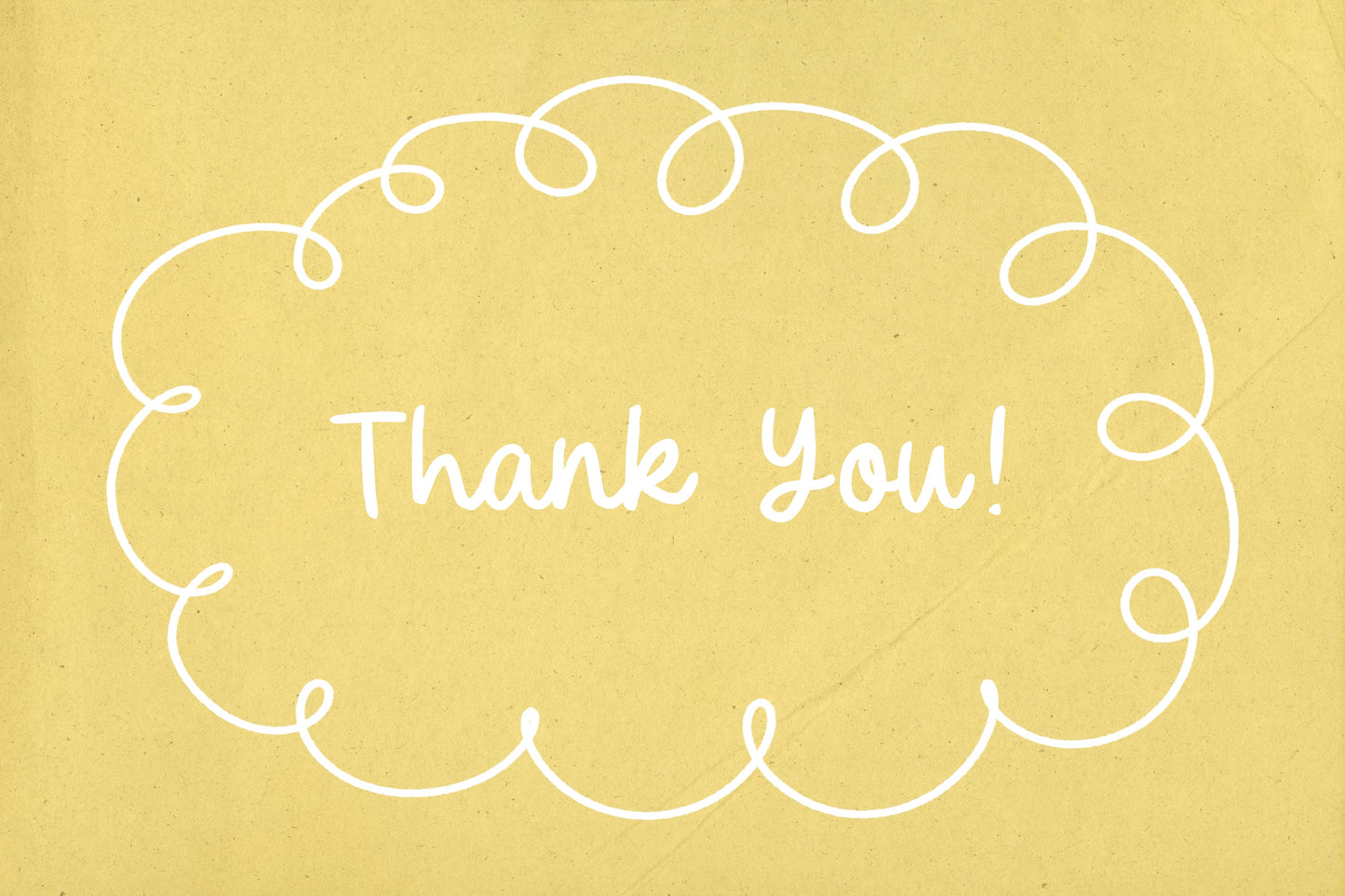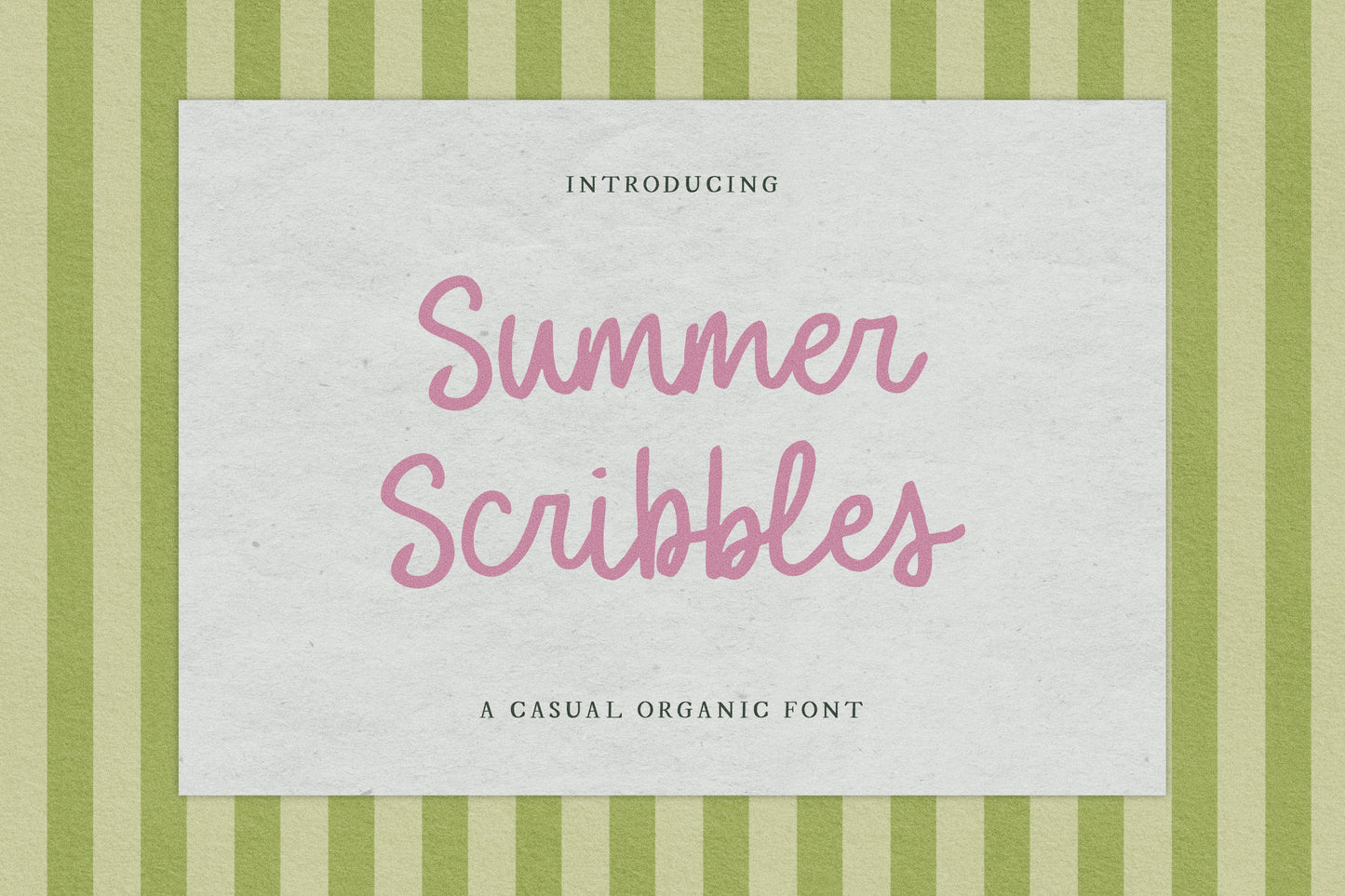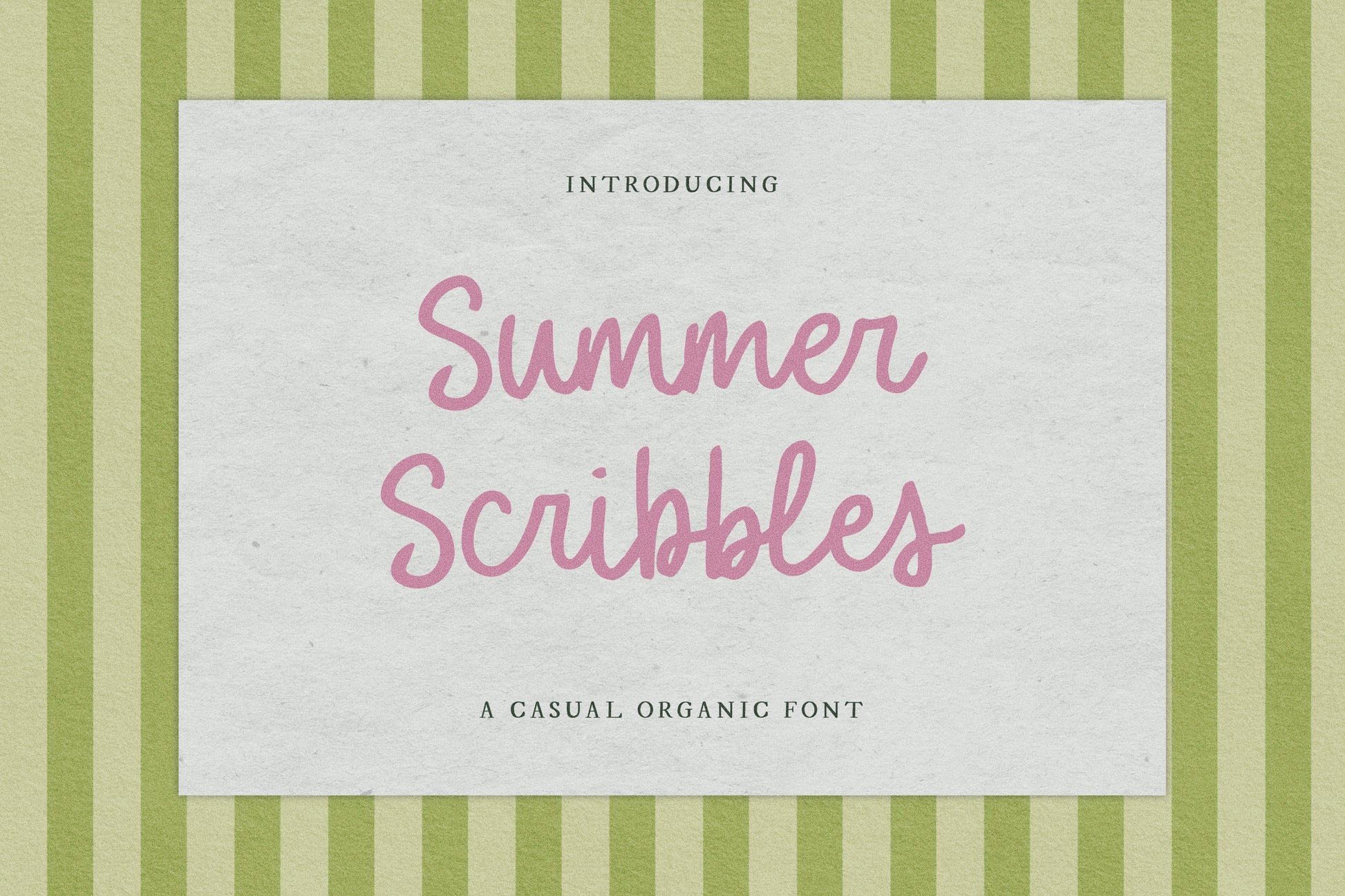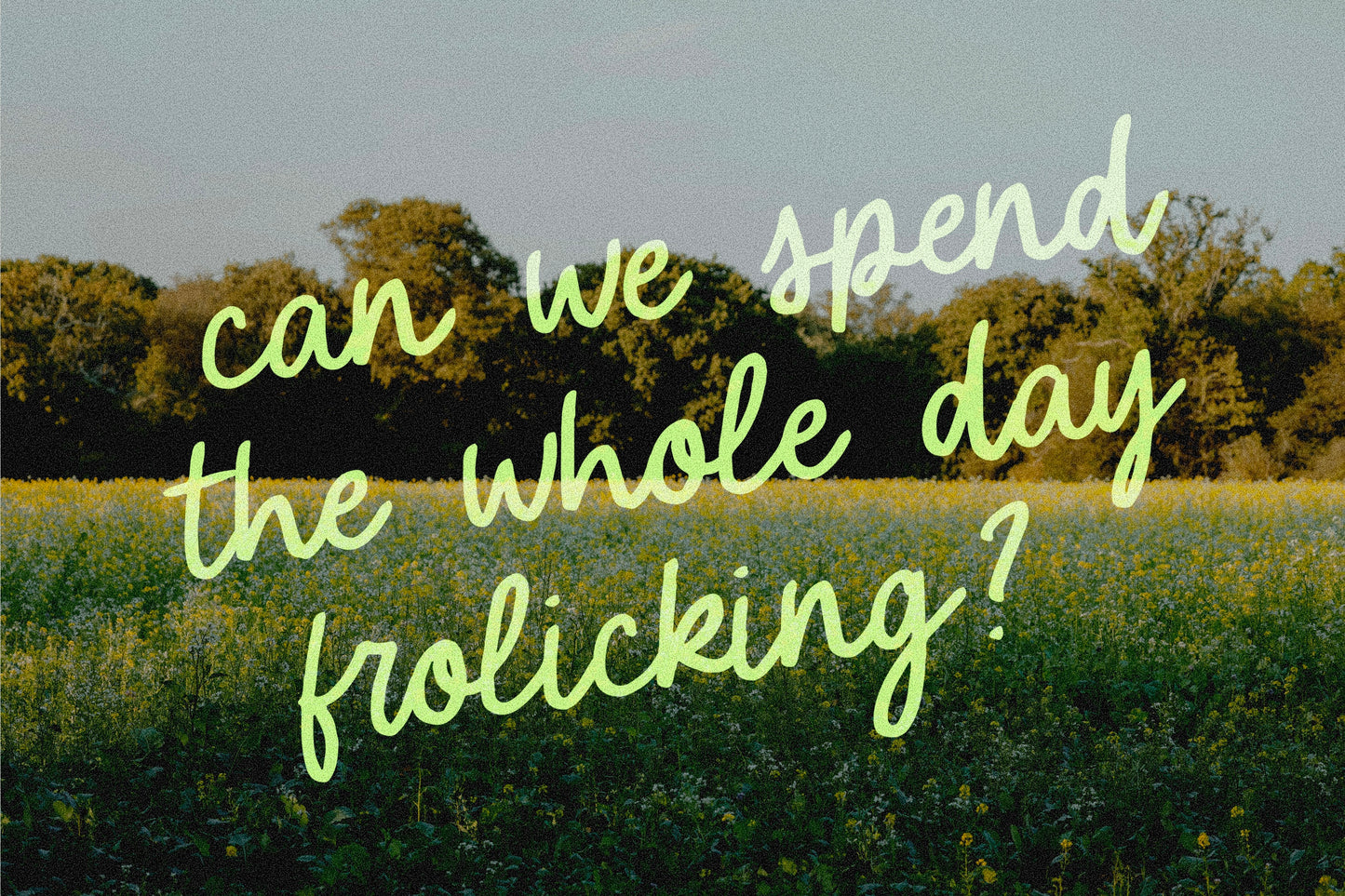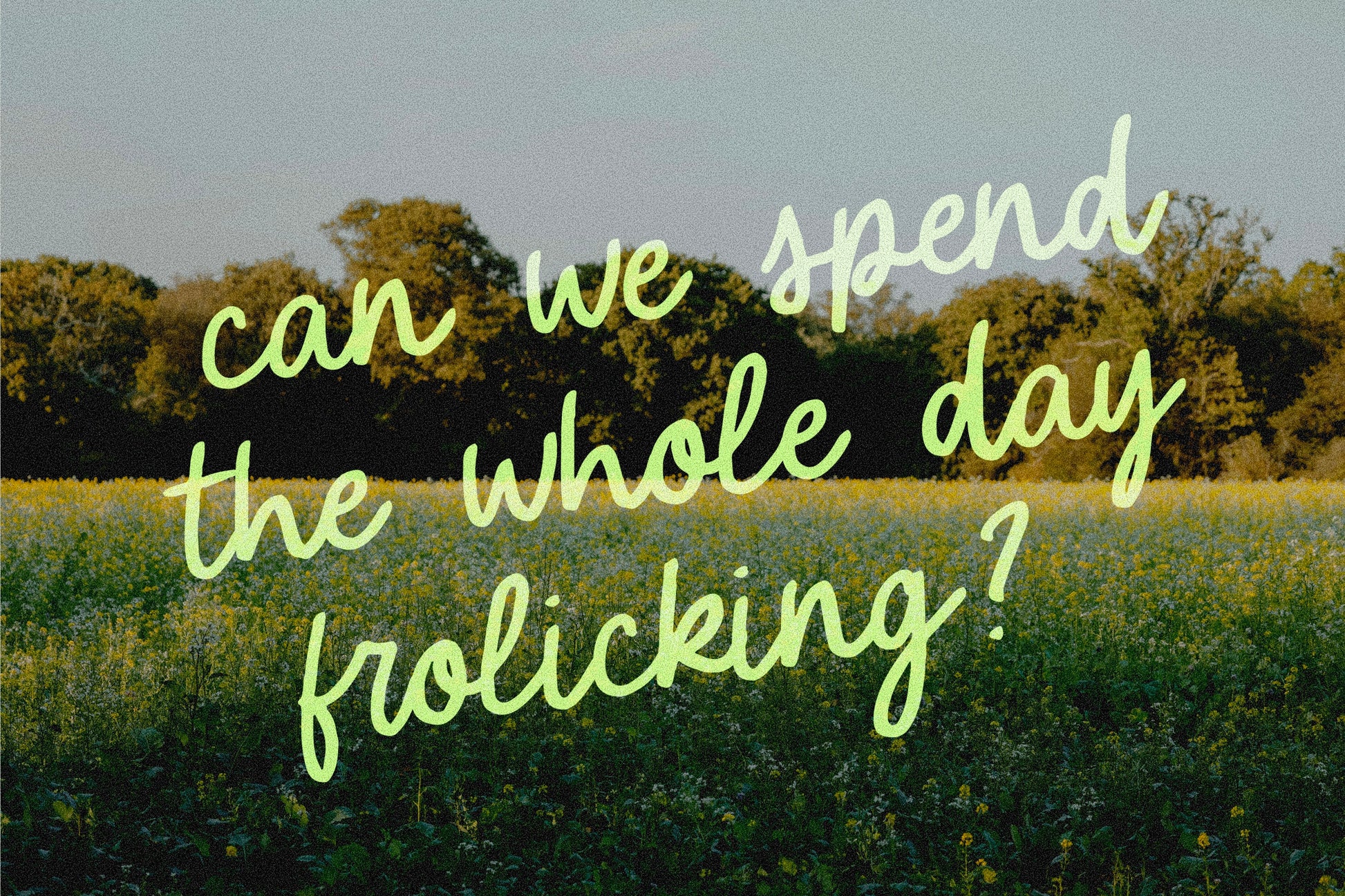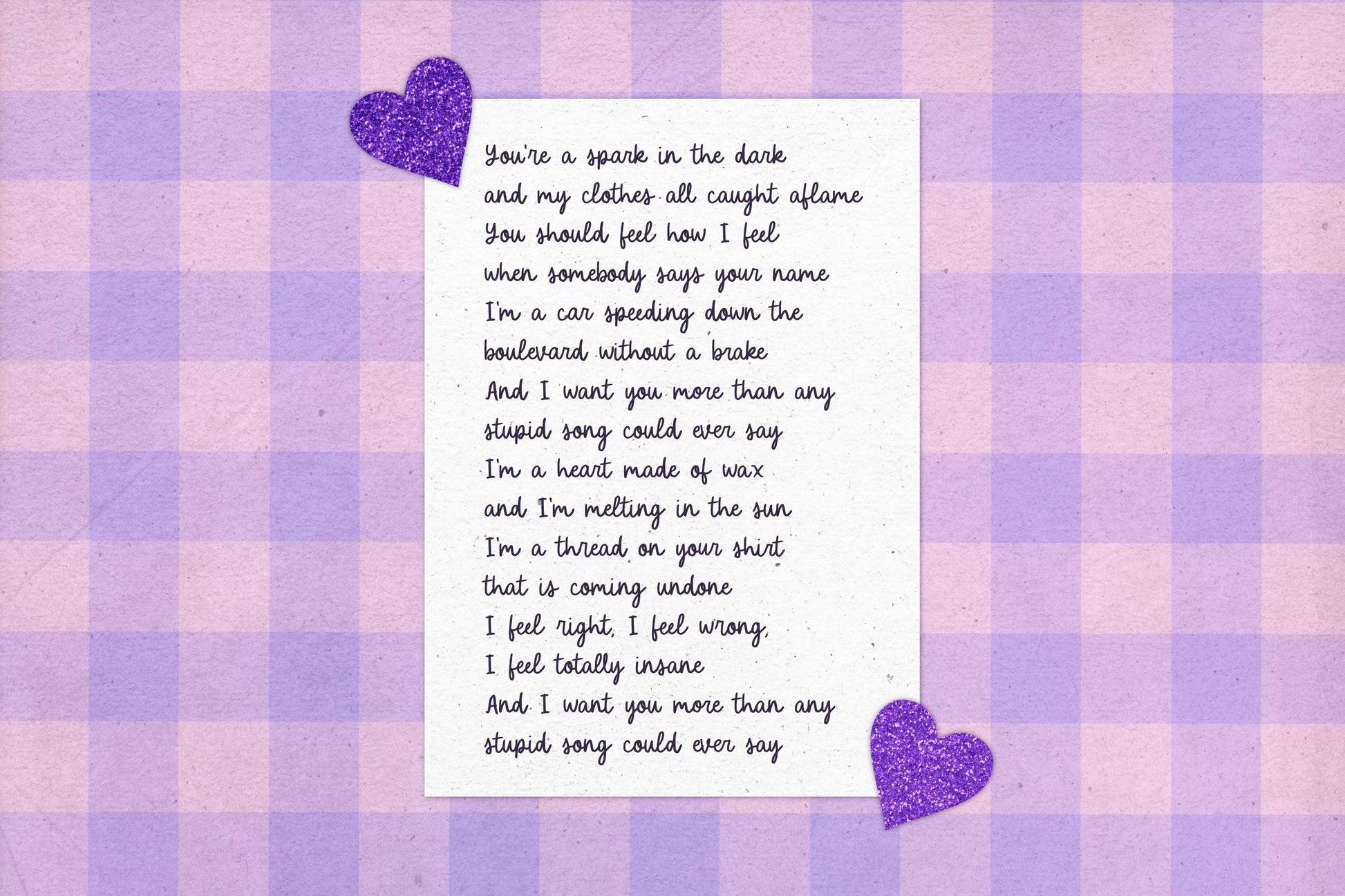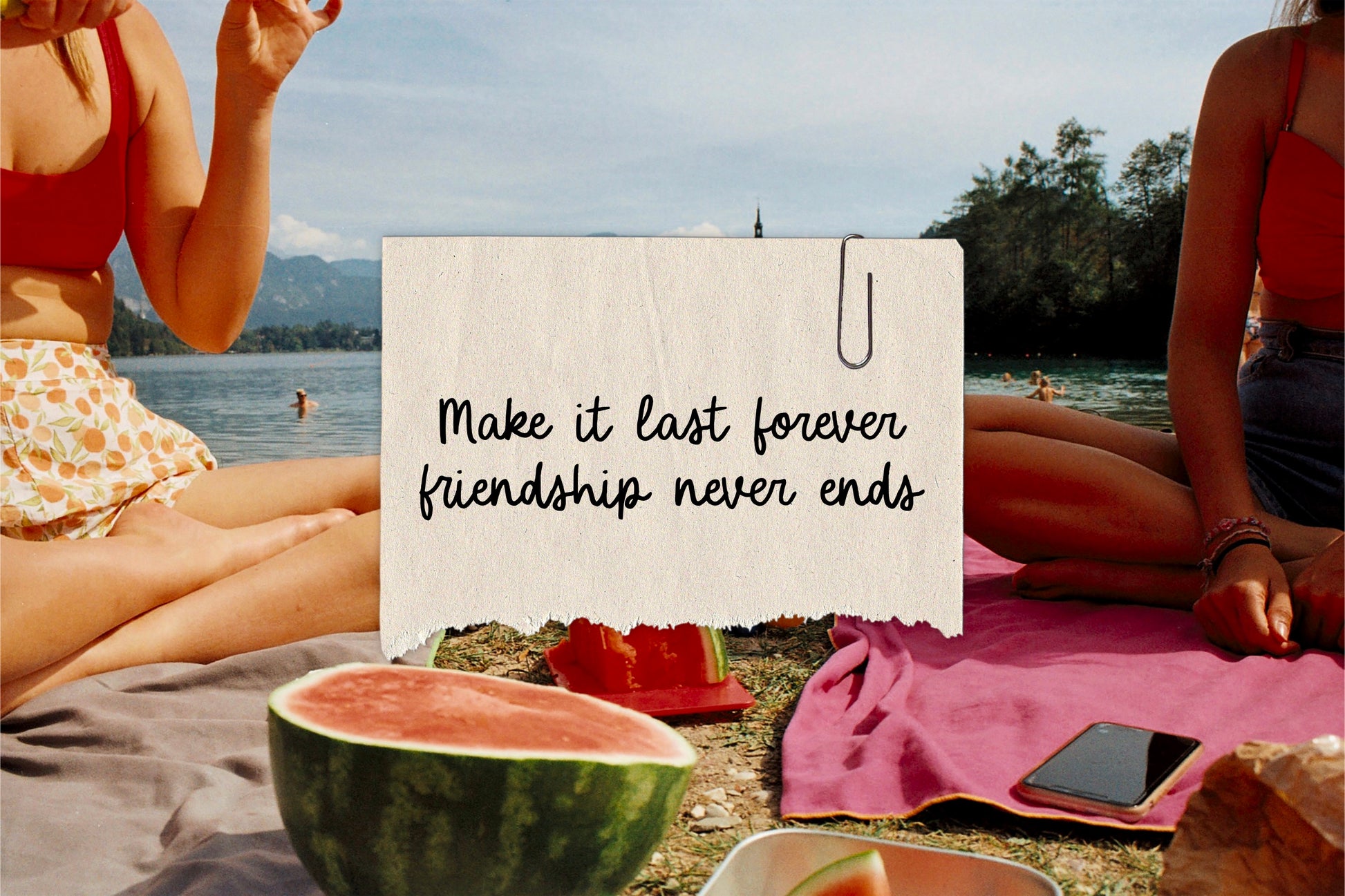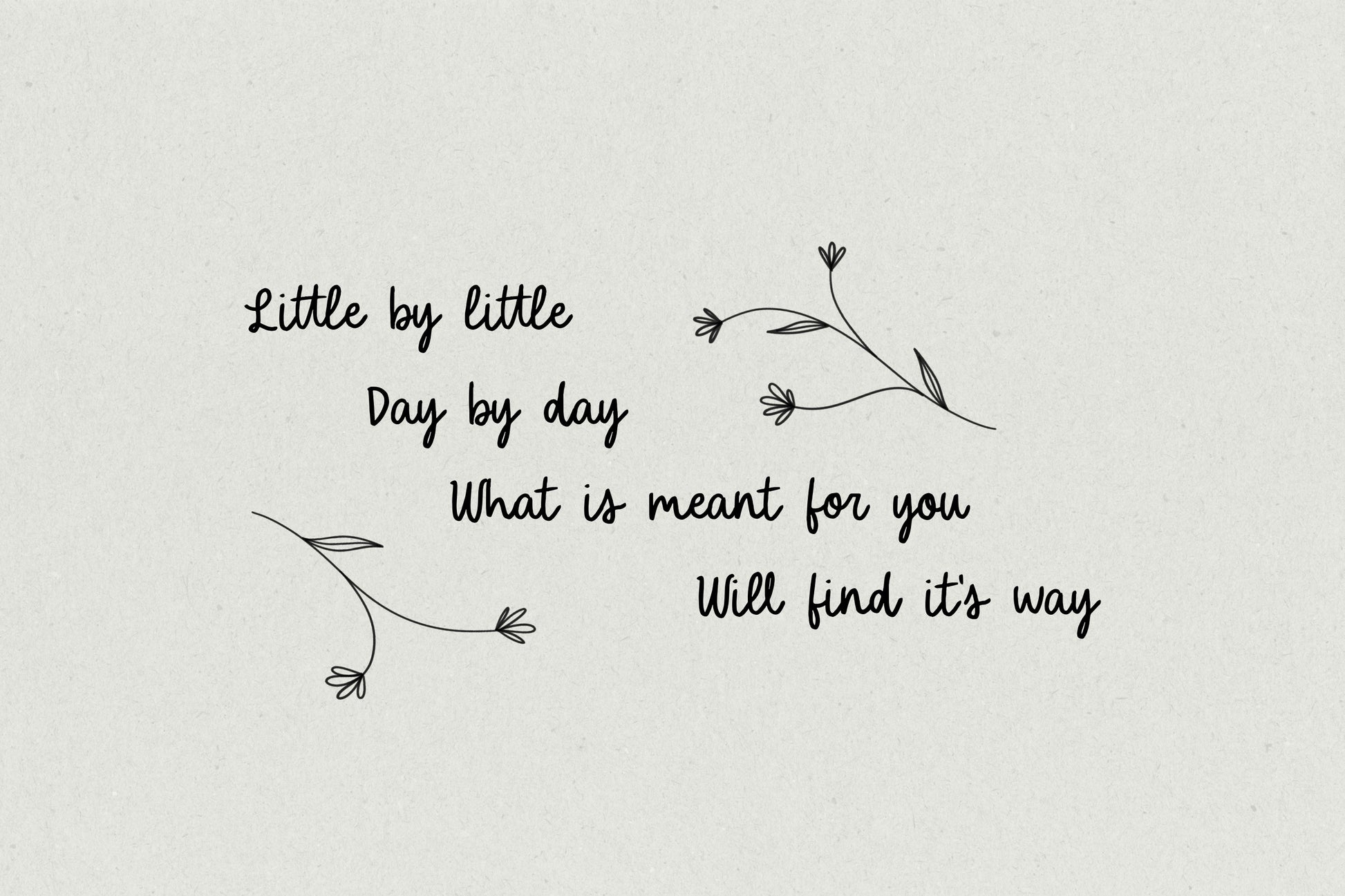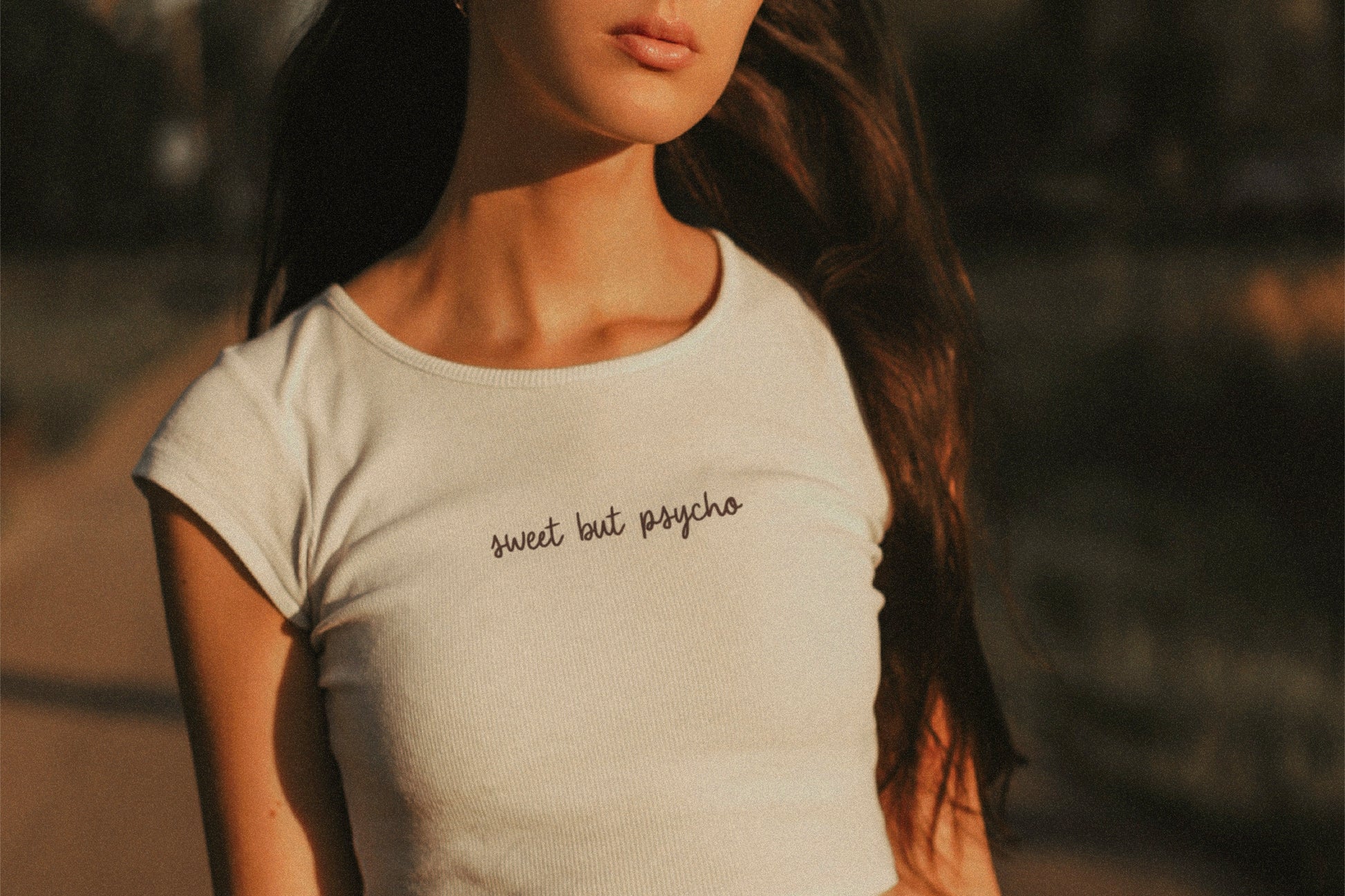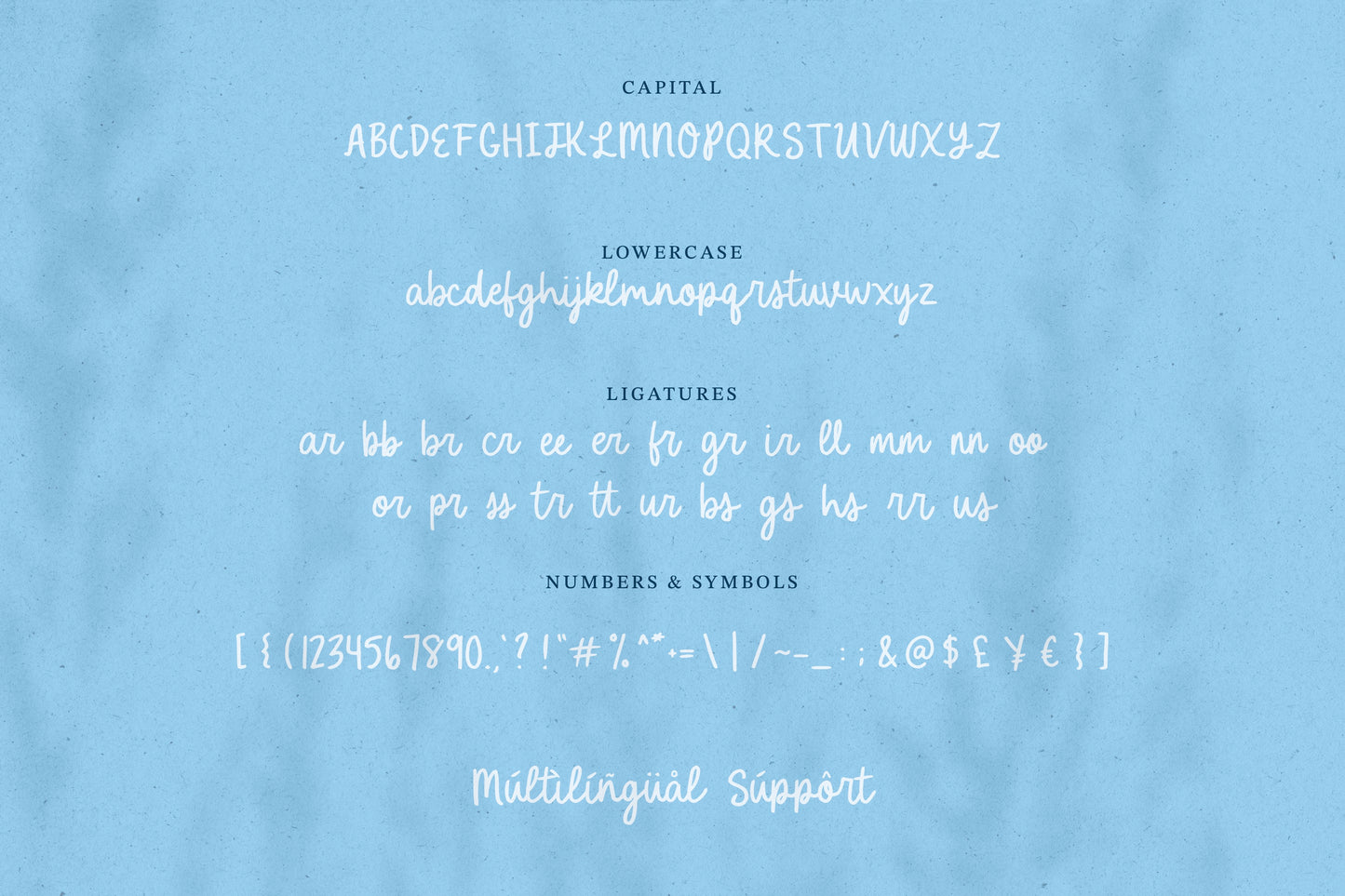
Summer Scribbles | Casual Handwritten Font
Introducing a natural, handwritten font: Summer Scribbles! This organic writing has a little rough texture that will add a personal, slightly whimsical touch to any design! It is perfect for any and all logos, branding, invitations, stickers, t-shirts, posters, and much more!